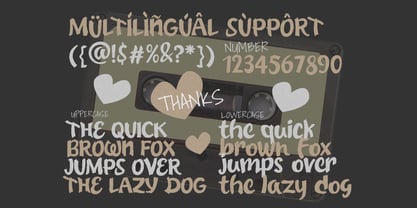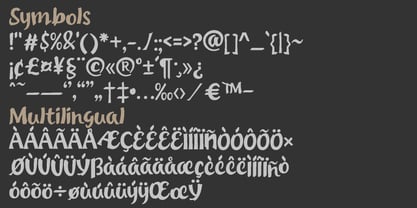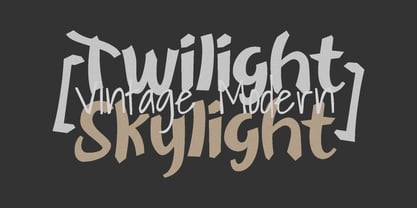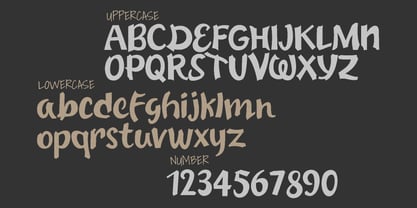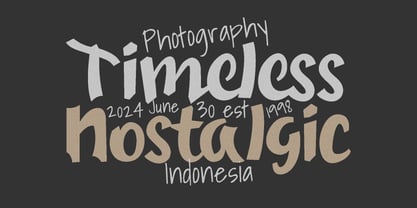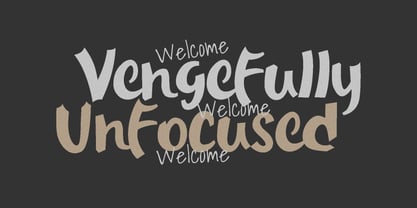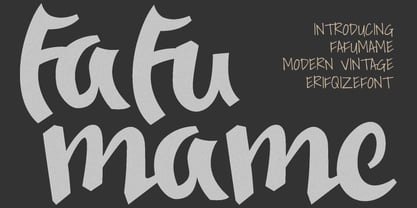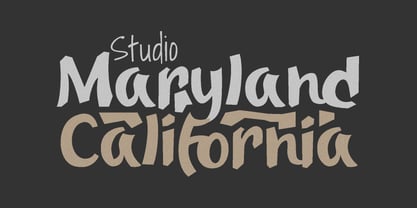
Fafu Mame
by Erifqizefont
The Fafu Mame Font Family was designed by Eka Rifqi Setiawan and published by Erifqizefont. Fafu Mame contains 1 styles.
Fafu Mame is a modern vintage display font that combines playful curves with a bold retro touch. Its hand-crafted letterforms bring warmth and personality to every design, making it perfect for branding, packaging, logos, posters, or any project that needs a nostalgic yet stylish vibe. With smooth curves and a strong visual rhythm, Fafu Mame captures the essence of modern vintage typography — bold, fun, and full of charm. This font also includes multilingual support to enhance your creative flexibility
Designers: Eka Rifqi Setiawan
Publisher: Erifqizefont
Foundry: Erifqizefont
Design Owner: Erifqizefont
Fafu Mame